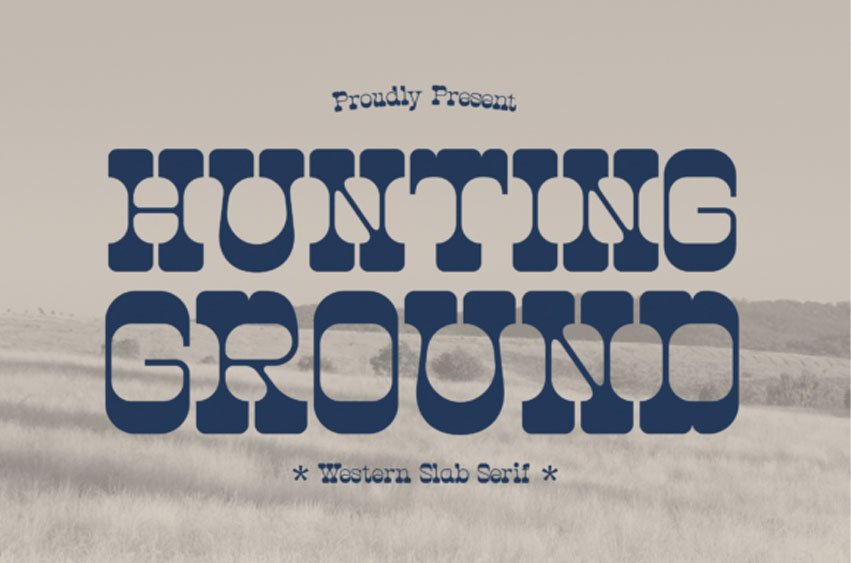
Hunting Ground Font
Hunting Ground Font is a Western-style slab serif font with a rugged, vintage look.
Its bold, sturdy letters give it a classic, frontier feel that’s perfect for a range of designs.